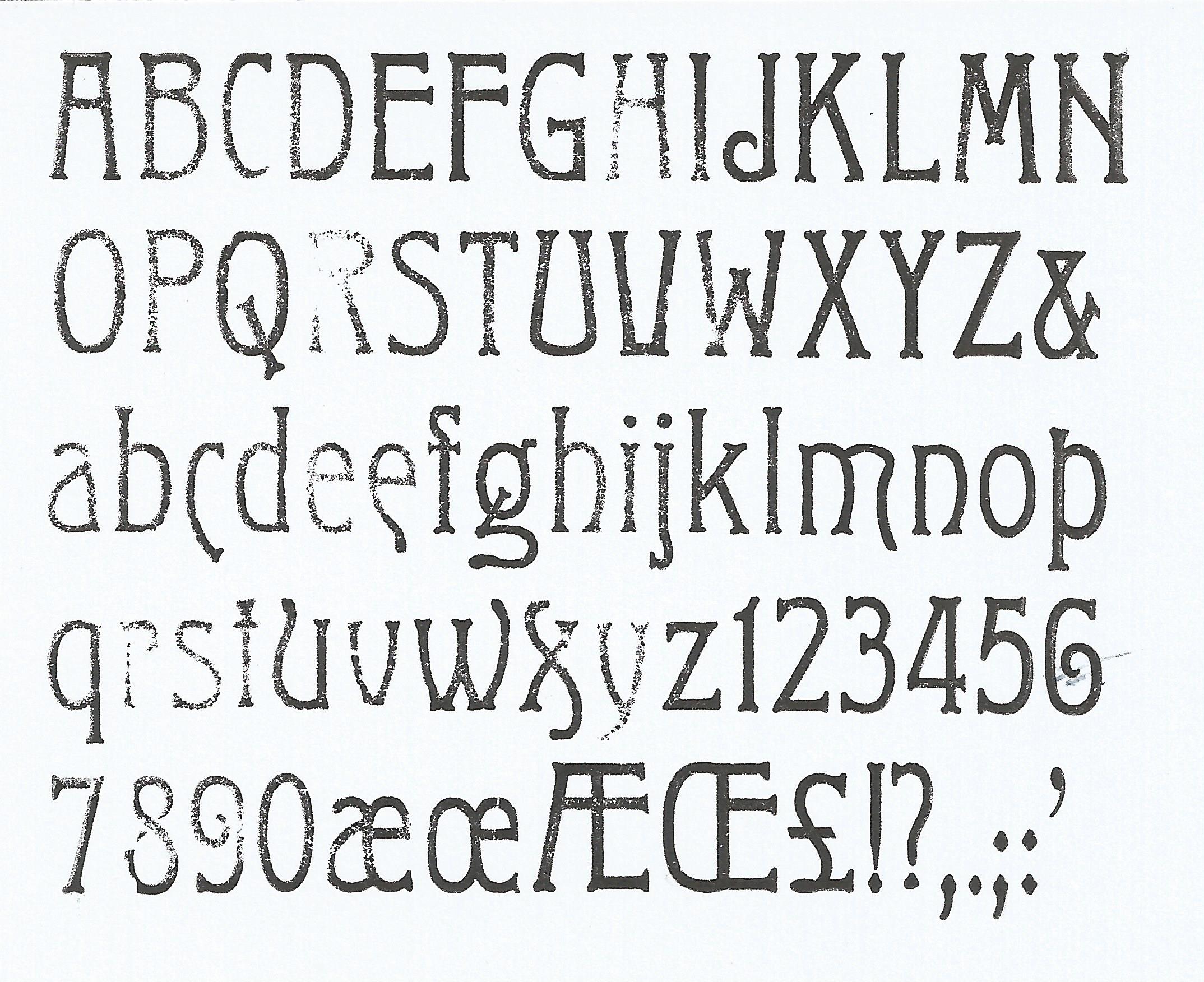
It looks old fashioned, but it comes with cool stylistic alternates, it could be a didone, but it is not (really), it looks formal, but. About mysterious font family mysterious is a bit of an unusual font. You never know what this playful 1960s.
It Looks Old Fashioned, But It Comes With Cool.
Mysterious is a bit of an unusual font. This font would be perfect for any product (physical or digital) with a horror, scary, gothic theme. Our most extravagant and curious fonts, to give style to your more daring texts.